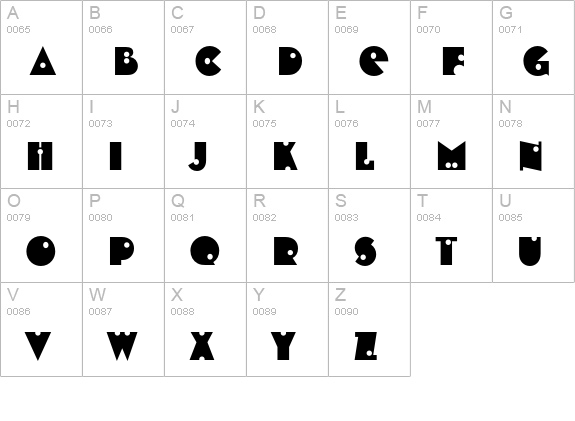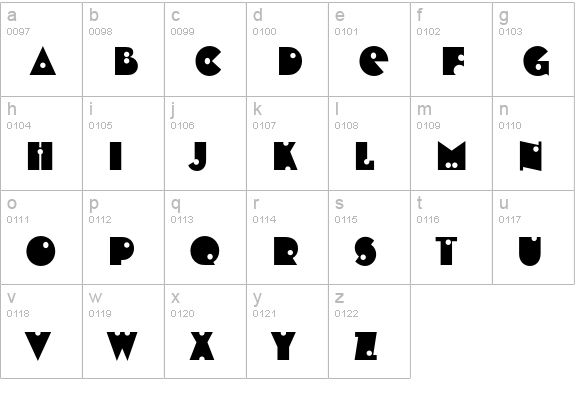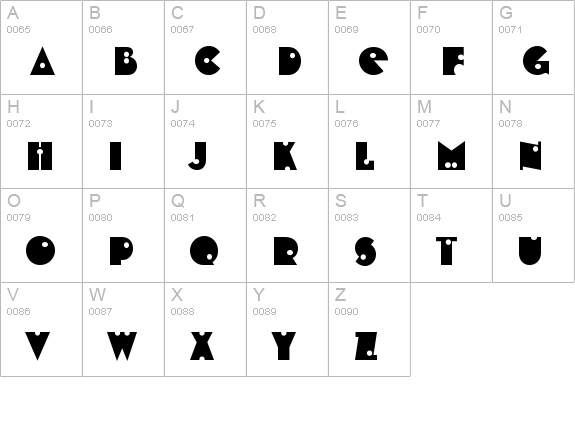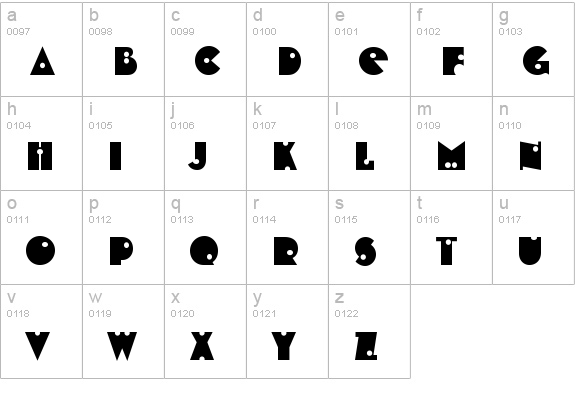
Shotgun Font Details
Shotgun font is a striking and powerful typeface that is sure to make a bold statement in any design project. With its strong and angular letterforms, this font exudes confidence and strength. The sharp edges and clean lines give it a modern and edgy feel, making it perfect for projects that require a touch of attitude. What sets Shotgun font apart is not only its unique design, but also the fact that it is available for free. That's right, you can download this amazing font without spending a dime. Thanks to FontsMarket.com, you can easily access and download Shotgun font, allowing you to add a touch of rebelliousness and sophistication to your designs, all without breaking the bank. Whether you're designing a poster, logo, website, or any other creative project, Shotgun font is a versatile choice that will instantly catch the eye of your audience. Its bold and commanding presence will make your message stand out and leave a lasting impression. So why wait? Head over to FontsMarket.com today and get your hands on Shotgun font. With its striking design and the fact that it's freely available, it's an opportunity you don't want to miss. Download Shotgun font now and take your designs to the next level.